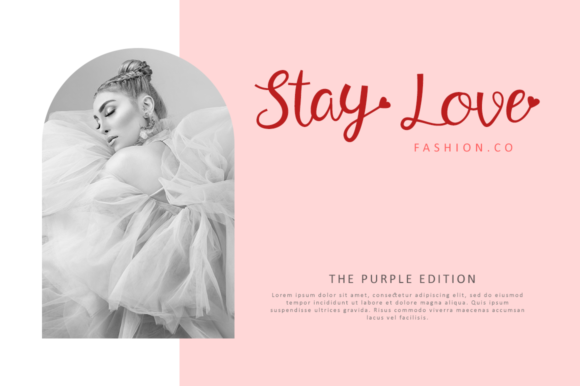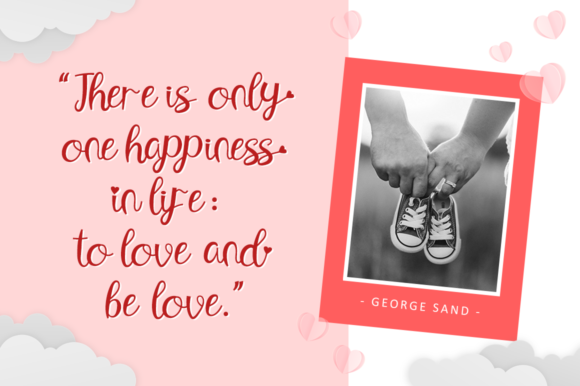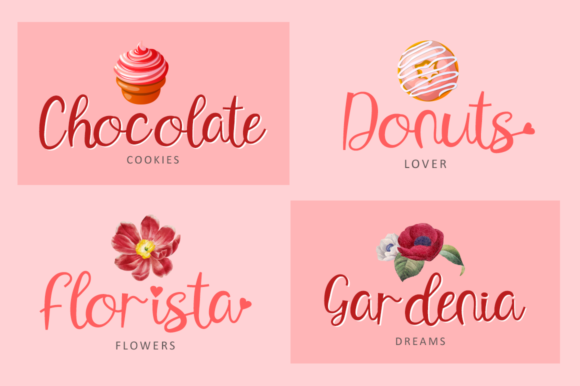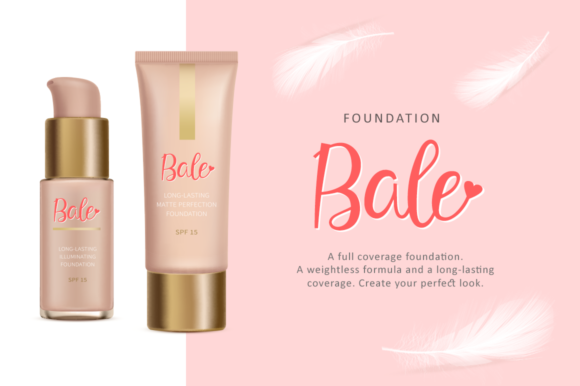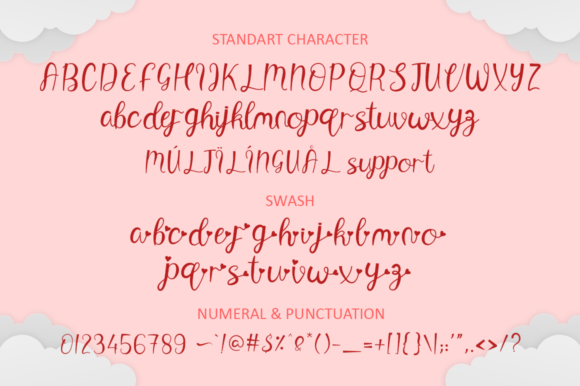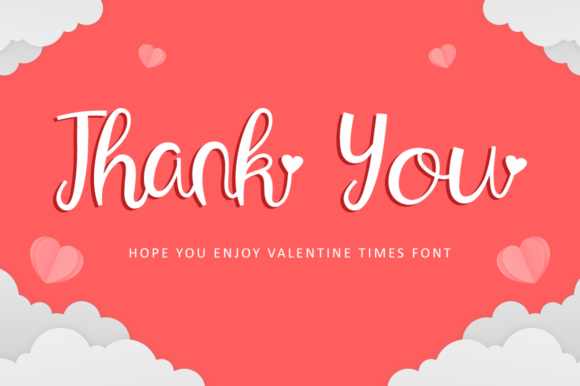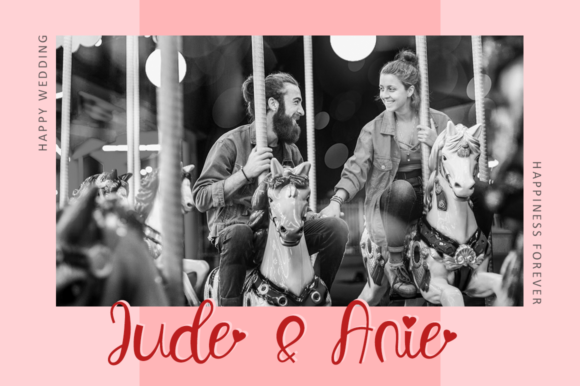
Valentine Times Font
About Valentine Times Font
Valentine Times is a stunning handwritten font that exudes beauty and elegance. Its simplicity and versatility make it a perfect choice for a variety of design projects, particularly when combined with various craft designs.
With its clean and legible letterforms, Valentine Times adds a touch of sophistication to your creations. Whether you’re designing wedding invitations, greeting cards, logos, posters, or any other craft project, this font will enhance the overall aesthetic and bring a sense of romance to your designs.
The PUA encoding of Valentine Times provides you with easy access to a wide range of glyphs and swashes, allowing you to add decorative elements and customize your designs with ease. This feature empowers you to create unique and personalized pieces that stand out from the crowd.
Valentine Times is a font that embraces simplicity, yet it retains a sense of elegance and charm. The smooth and flowing letterforms create a graceful appearance, while the natural variations in stroke widths add a subtle handmade touch.
The versatility of Valentine Times enables it to adapt to different design styles and themes. Whether you’re going for a classic and timeless look or a more modern and contemporary feel, this font can effortlessly complement your vision.
When used in combination with craft designs, Valentine Times adds a touch of warmth and artistry to your projects. Its versatility allows it to work well with various textures, patterns, and illustrations, creating a cohesive and visually pleasing design.
In summary, Valentine Times is a beautiful handwritten font that is both simple and versatile. With its PUA encoding, you have access to a wide range of glyphs and swashes, allowing for customization and personalization. Whether you’re creating wedding invitations or craft projects, Valentine Times brings an elegant and romantic touch to your designs. Embrace its simplicity and let it enhance your creativity as you create stunning and memorable pieces.